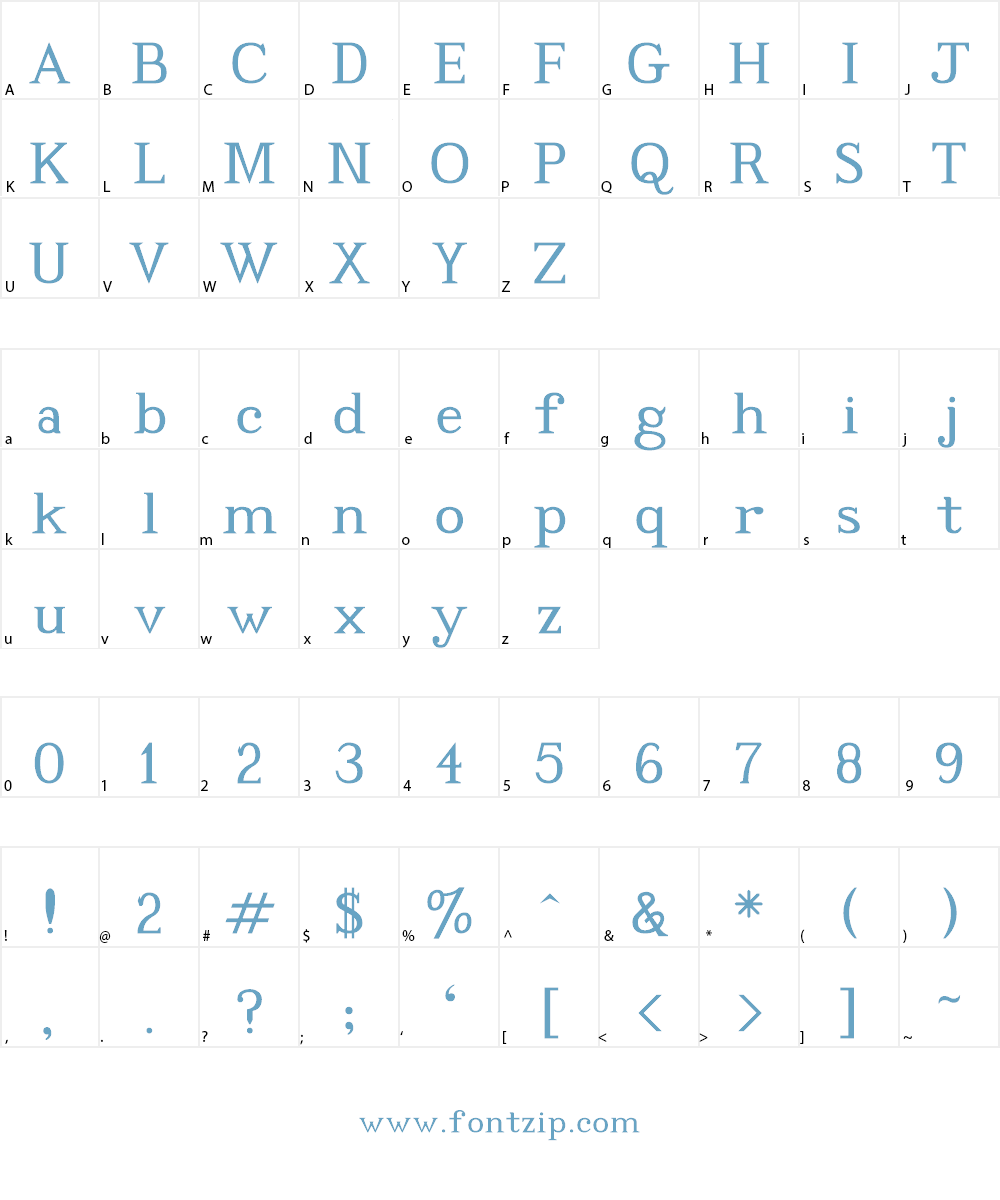
Code2001 is a Plane 1 Unicode-based font (TTF).
Code2001 presently includes Old Persian Cuneiform, Deseret, Tengwar, Cirth, Old Italic, Gothic, Aegean Numbers, Cypriot Syllabary, Pollard Script, Old Persian Cuneiform, Phoenician, and Ugaritic. Provisional scripts are encoded in Private Use Areas, both in the Basic Multilingual Plane and Plane Fifteen. ISO-8859-01 is included for backwards compatibility (and because it is required by the specifications). As in the last few versions -- rough glyphs for many of the scripts which were recently added to Unicode are now found in the font. These rough, filler glyphs were added quickly in order to enable testing of these additions. These rough glyphs will be improved as time allows, meanwhile they should be better than those little squares.
Please note that scripts like Tengwar and Cirth are not yet part of any international standard. These scripts have been proposed for inclusion but lack approval. Users are warned that the Private Use Area code points will NOT be the final code points in which these scripts become approved. Furthermore, the proposals themselves often change. In an effort to keep this font avant-garde, when the proposals are amended, the code points of these provisional scripts in the font will need to be changed, too.